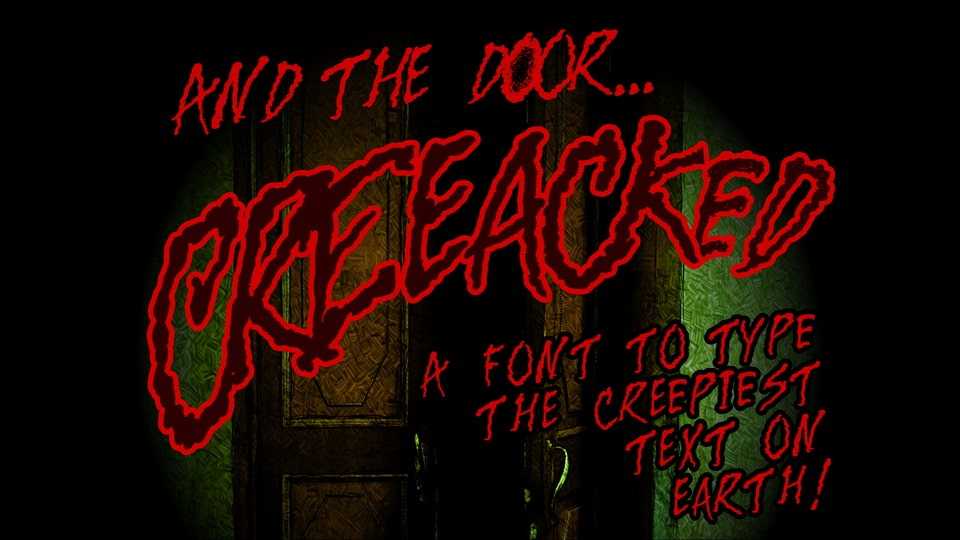
Download And The Door Creeeaked font, an ugly, grotesque, creepy handwritten font designed for onomatopoeia. The font features alternates for some letters to simulate an organic feel.